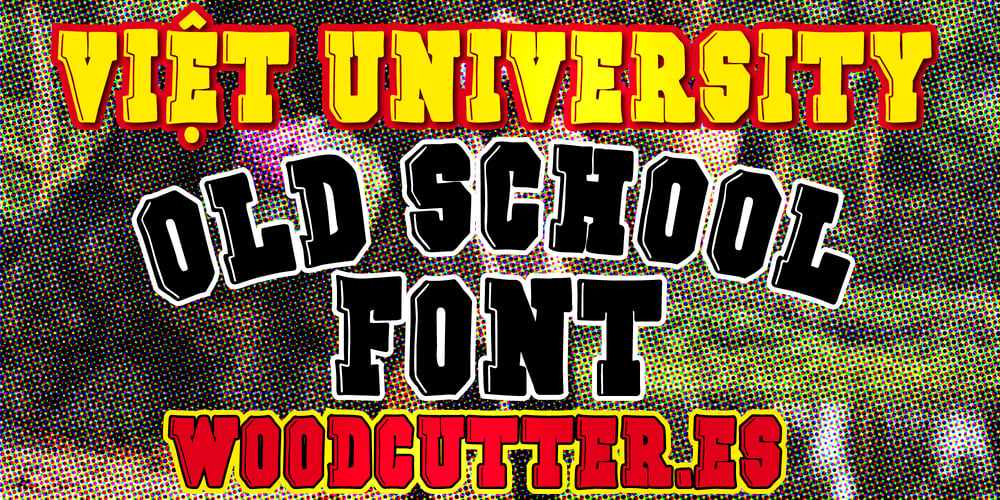
Viet University
Viet University font
Viet University Font Family was designed by Jordi Manero and published by Woodcutter. Viet University contains 1 styles and family package options. “Viet University” is a font with an old school look that evokes the nostalgia of traditional educational institutions. Its uppercase letters, including accents, are adorned with a slight shadow to the left, adding depth and a vintage touch to each character. Perfect for designs aiming to capture a classic and academic style, this font is ideal for posters, headers, and projects related to education and history. Its robust and well-defined aesthetic ensures that any text stands out with elegance and authority.